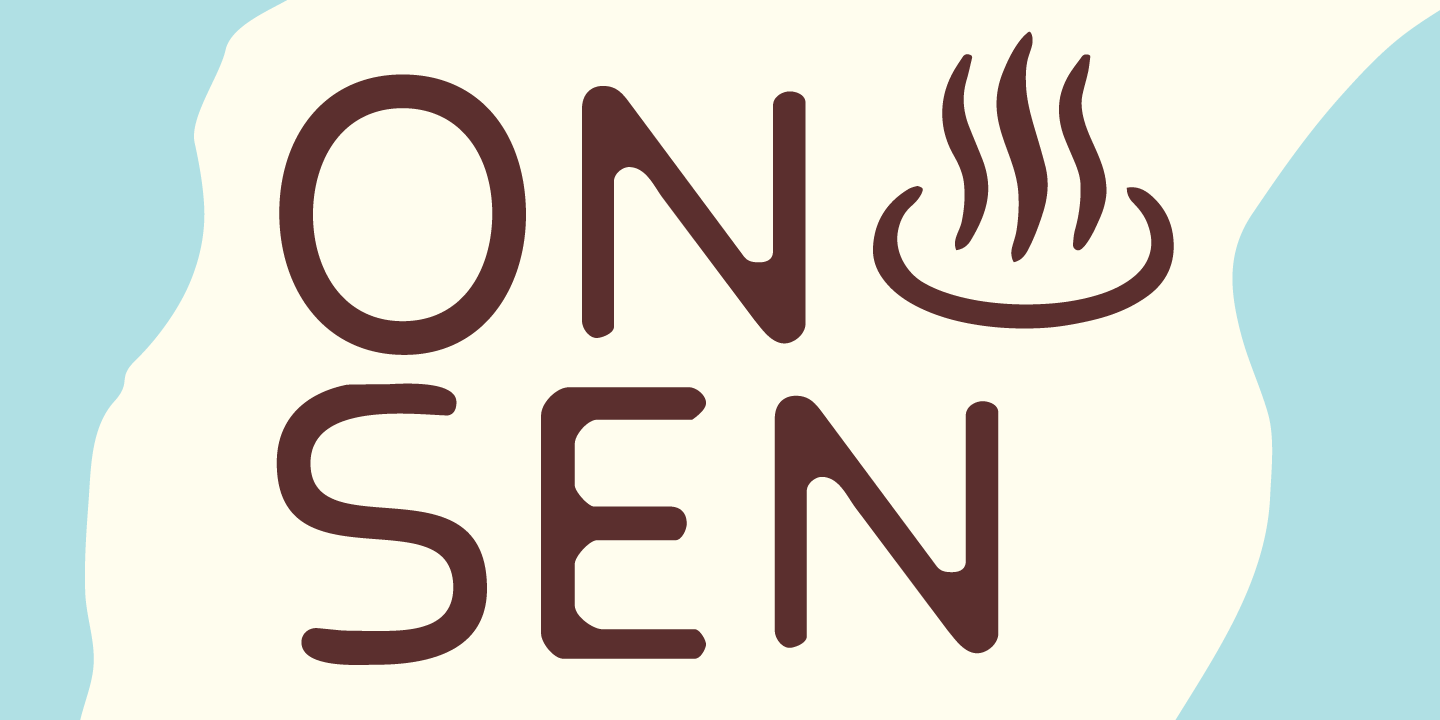
Beppu
Designed by Chatnarong Jingsuphatada, Beppu is a sans serif font family published by Typesketchbook.
Beppu is relaxed typeface. Inspired when i vistied Beppu in Japan, You may find it on art publications, in fancy cafes, or even on marriage invitation card.